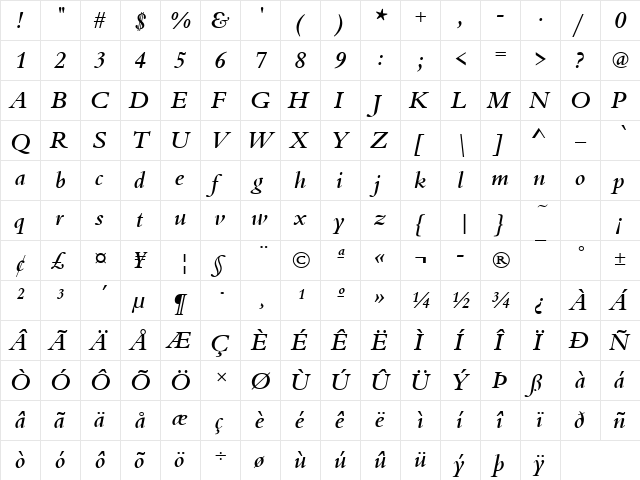
URWBeruiniTMed Italic Font Preview
URWBeruiniTMed Italic
URWBeruiniTMed Italic Font Details
Design Context for URWBeruiniTMed Typeface
URWBeruiniTMed takes a measured approach to typography — its balanced proportions and neutral character make it a reliable workhorse for both digital and print work. The slanted form adds forward momentum and visual energy.